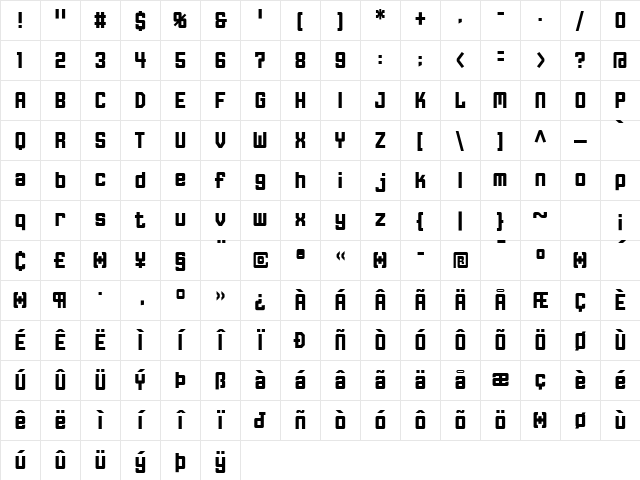
Complete FFGothic OneTwoCondensed glyph index. Displaying only characters natively supported by FFGothic OneTwoCondensed font.
FFGothic takes a clean, functional approach - its unadorned letterforms prioritise legibility and work reliably across screen and print environments. Its narrow stance lets it pack a punch even in space-constrained designs.
Font Pairing: Works well alongside a characterful serif or display font that can carry the expressive load while FFGothic handles the functional copy.
Pro Tip: Use FFGothic tightly set in headlines and banners - its condensed proportions make it ideal for maximum impact in minimum horizontal space.